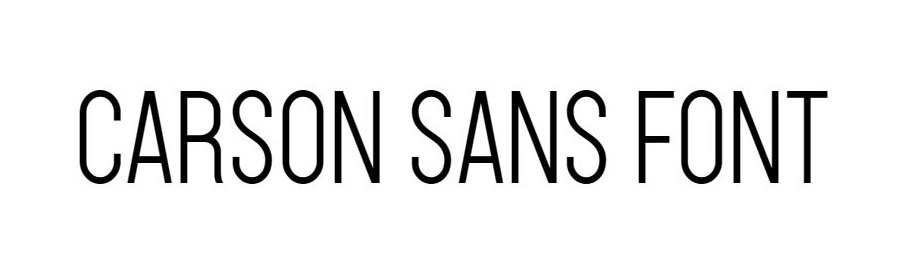
Carson
Carson is a sans serif font (2018). Simple, open letter shapes keep it easy to read at almost any size, from app buttons to big headlines. You can download it for free and test it with your own words in the preview above.
What You Can Type With Carson
With complete upper and lowercase letters and all ten digits, Carson is ready for real wording, not just a single headline. Everyday marks like &, !, ? and @ are there too. Thanks to its accented letters, it also works for Spanish, French, German, Portuguese and Italian, not just English. On top of that, it includes Cyrillic characters.
Where Carson Works Best
Carson is a natural fit for websites, app screens and clean logos. Its lowercase letters are small compared to the capitals, so set it a size or two bigger than usual. It works for headings and body text alike. If the download has several weights, use a heavier one for titles and a lighter one for paragraphs.
Does Carson support accented letters?
Yes. Carson includes the accented letters needed for Spanish, French, German, Portuguese and Italian, so it works for more than just English.